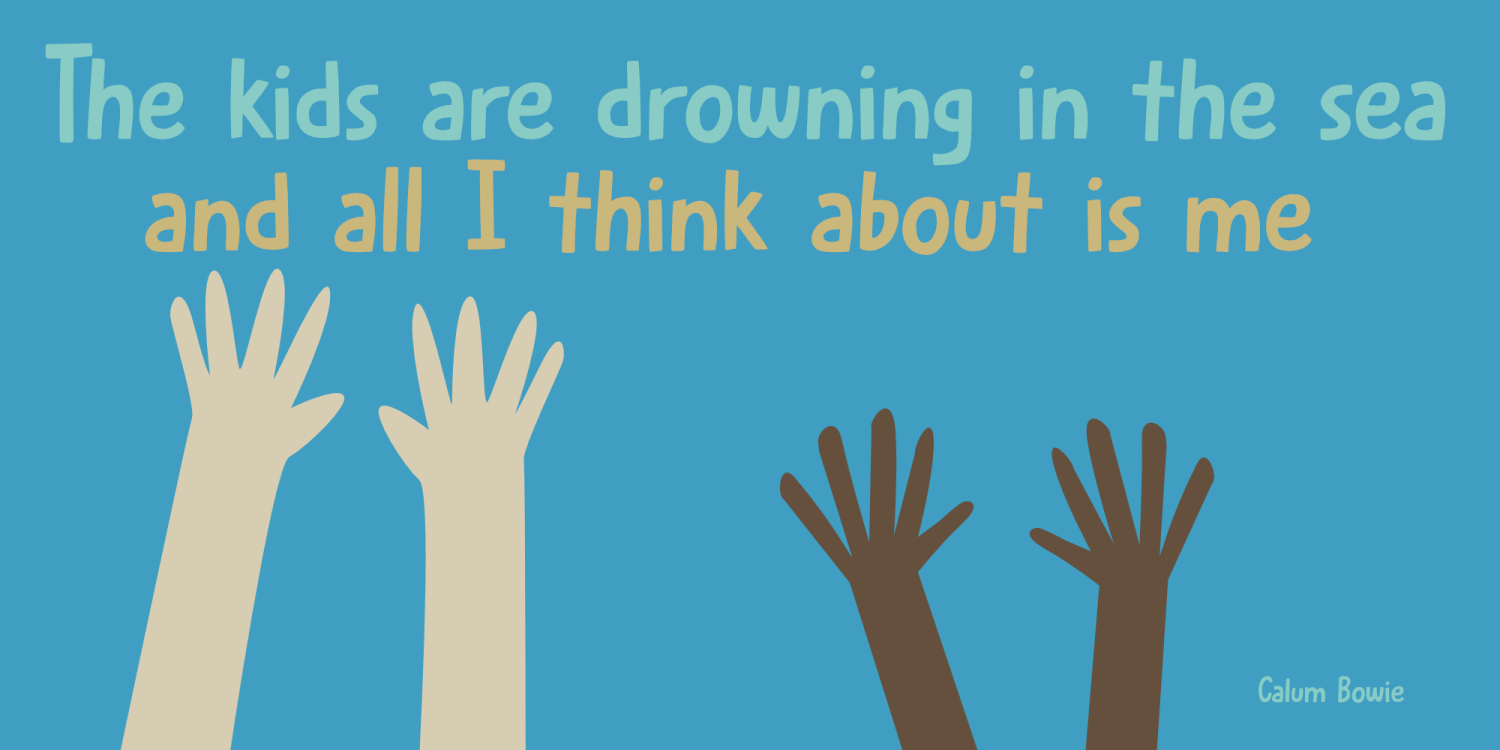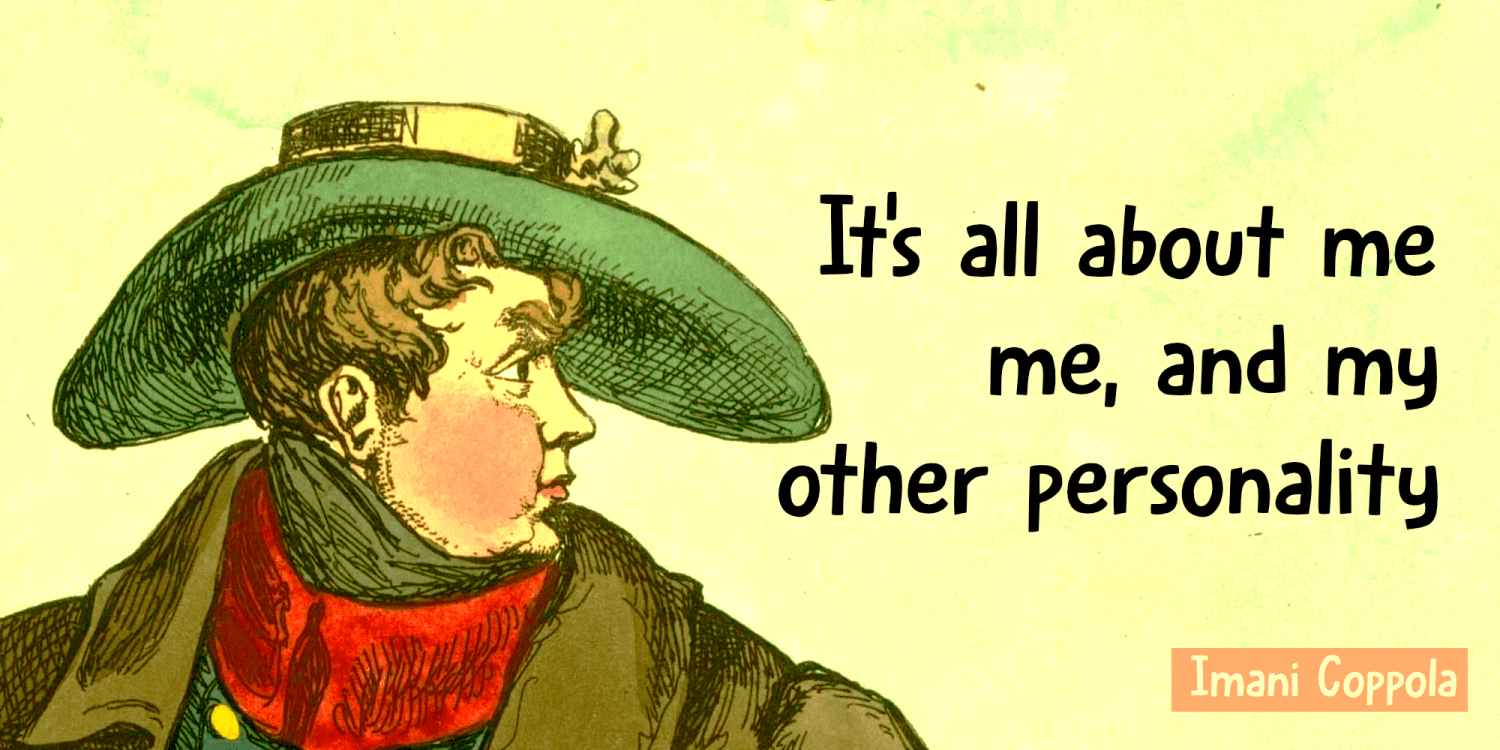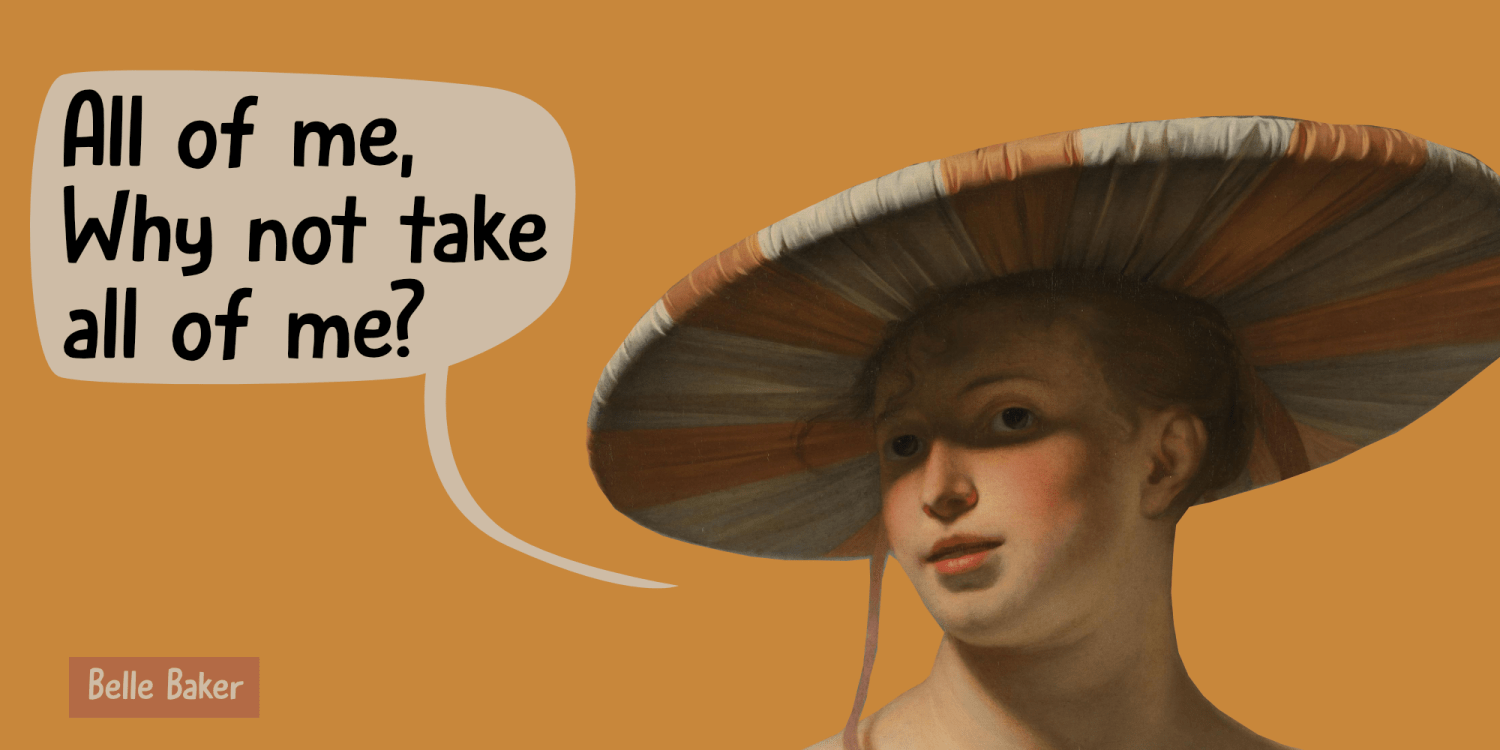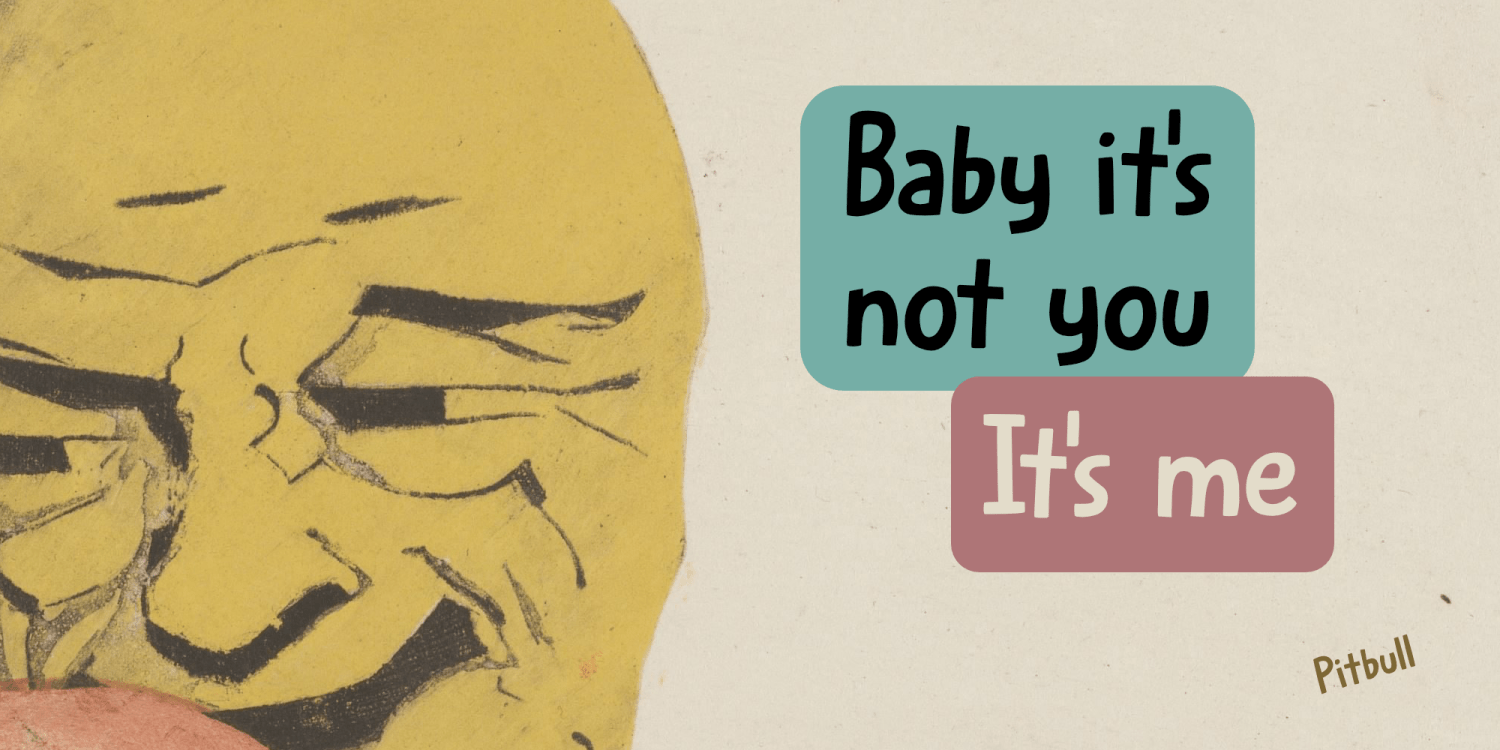
All About! Me
Font Family by Hanoded
;-) Well, not really, but it would be exemplary for the world we live in, where it is basically All About Me! With exclamation mark!
All About Me! is a nice, handmade cartoon font. I can tell you that it will look good on your book covers and product packaging — probably even on toys and stickers, but you all ready know that. You’re so smart! After all, it’s All About You!